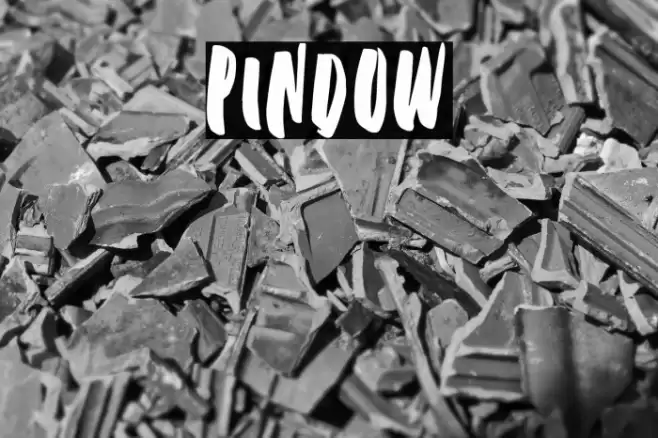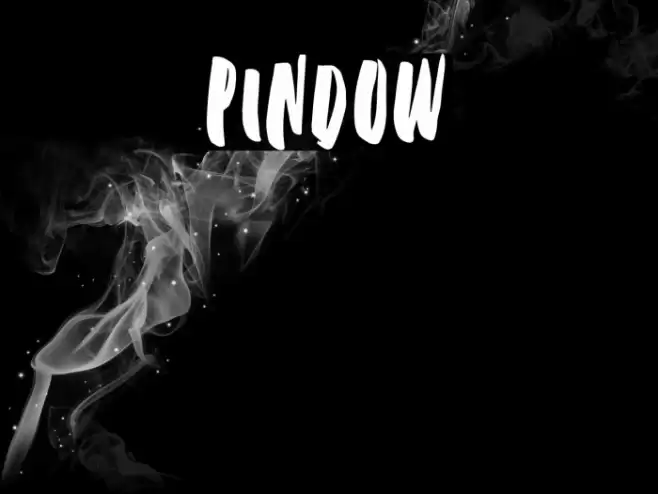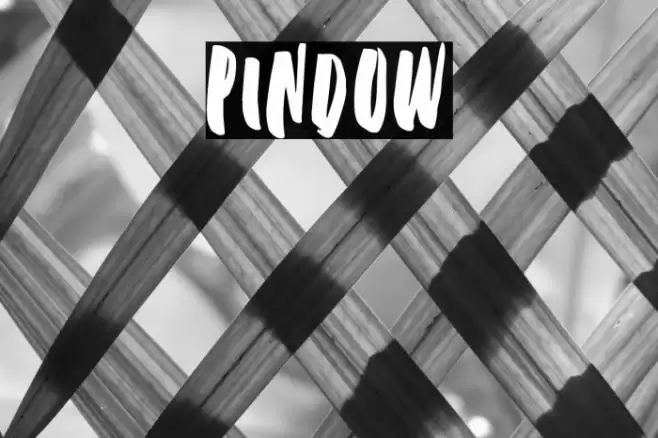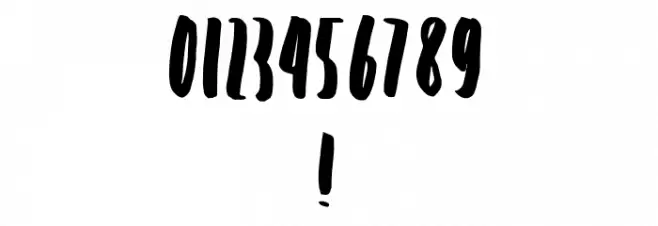
PINDOW Font
PINDOW Description
This font features a bold and expressive style with a handwritten feel, characterized by its thick, brush-like strokes and slightly irregular shapes. The uppercase and lowercase letters maintain a consistent weight, creating a cohesive look. The numbers and punctuation marks follow the same aesthetic, adding to the font's playful and dynamic nature. Its unique style makes it stand out, offering a sense of creativity and energy. The font's design is suitable for projects that require a personal touch or an artistic flair, making it ideal for creative branding, posters, and social media graphics.
A bold, handwritten-style font with expressive, brush-like strokes from Uncategorized fonts.